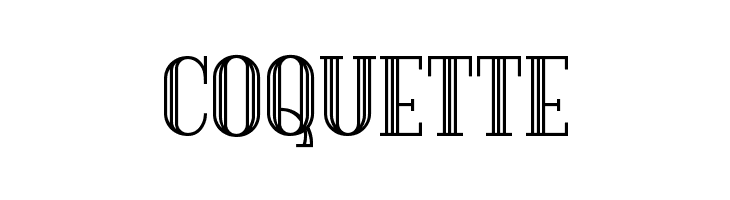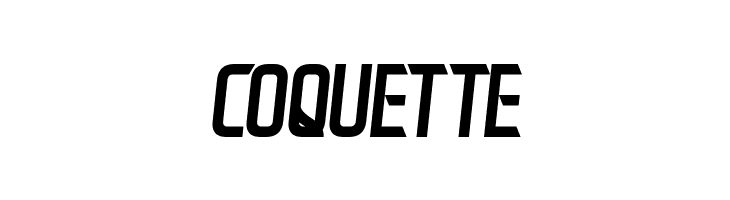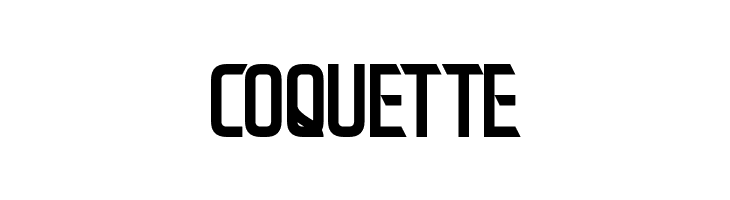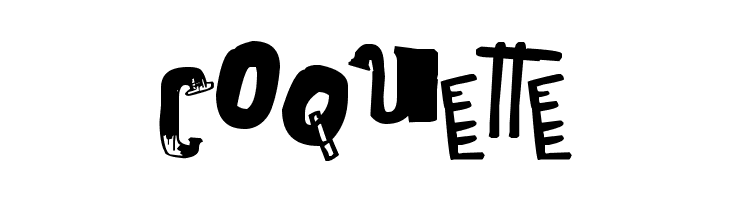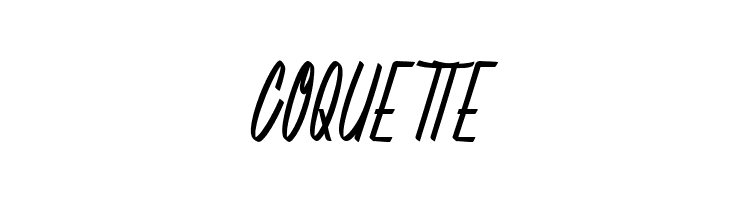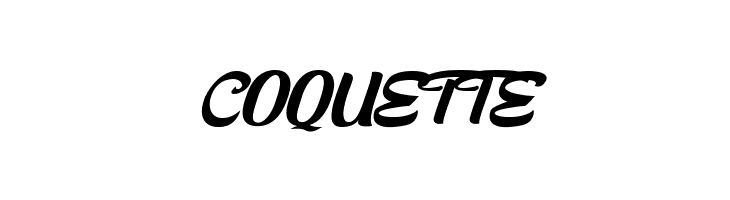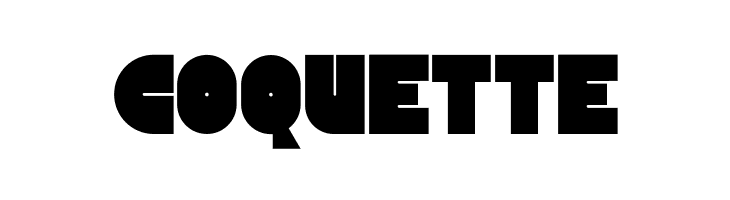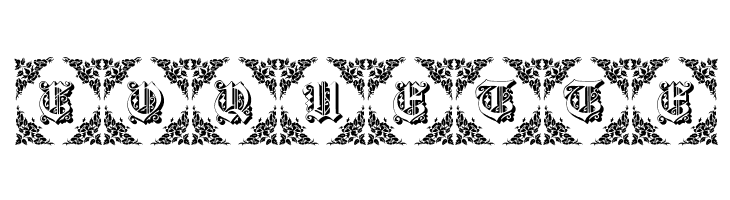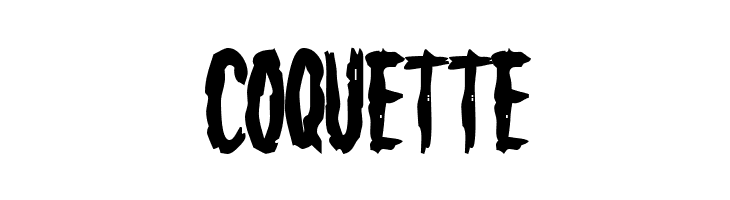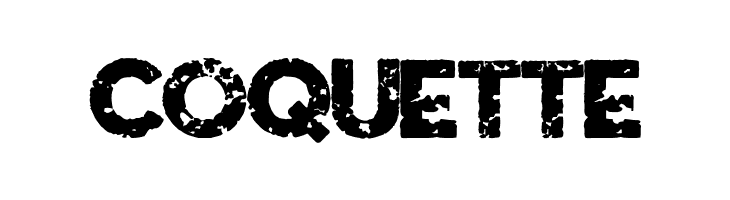
A bold, rugged font with a hand-crafted, organic appearance.
A rugged, hand-drawn font with a bold, vintage aesthetic.
A dynamic, slanted script font with an energetic, handwritten style.
A dynamic, slanted handwritten font with a modern, energetic style.
A bold, distressed font with tall, narrow letterforms and a gritty, weathered texture.
A bold, distressed gothic-style font with sharp, angular lines and a rugged texture.
A bold, distressed font with a rugged, edgy appearance.
A bold, distressed font with sharp, angular edges and a gritty texture.
A bold, geometric font with a strong, modern aesthetic.
A bold, geometric outline font with sharp angles and clean lines.
A bold, angular font with a modern and dynamic style.
A bold, geometric font with sharp, angular edges and a modern style.
A modern, elegant font with sleek, elongated characters.
A whimsical and decorative font with playful curls and swirls.
A bold, playful font with irregular, jagged characters and a hand-drawn feel.
A whimsical, decorative font with intricate, vine-like embellishments.
A bold, dynamic script font with a modern and elegant style.
A playful, artistic display font with a chaotic, hand-drawn style.
A bold, angular font with a futuristic and aggressive style.
A bold, brush-style font with sharp, angular strokes and high contrast.
A bold, jagged font with a dripping effect, perfect for dramatic and intense designs.
A decorative set of desert-themed symbols with intricate, bold designs.
A bold, playful font with a hand-drawn, artistic style.
A bold, distressed font with a grunge texture and rugged appearance.
A decorative inline font with a modern and elegant style.
An elegant inline font with a sophisticated, decorative style.
A bold, angular serif font with a condensed and geometric style.
A bold, modern font with strong, thick strokes and uniform width.
A dynamic brush-style font with expressive, fluid strokes and artistic flair.